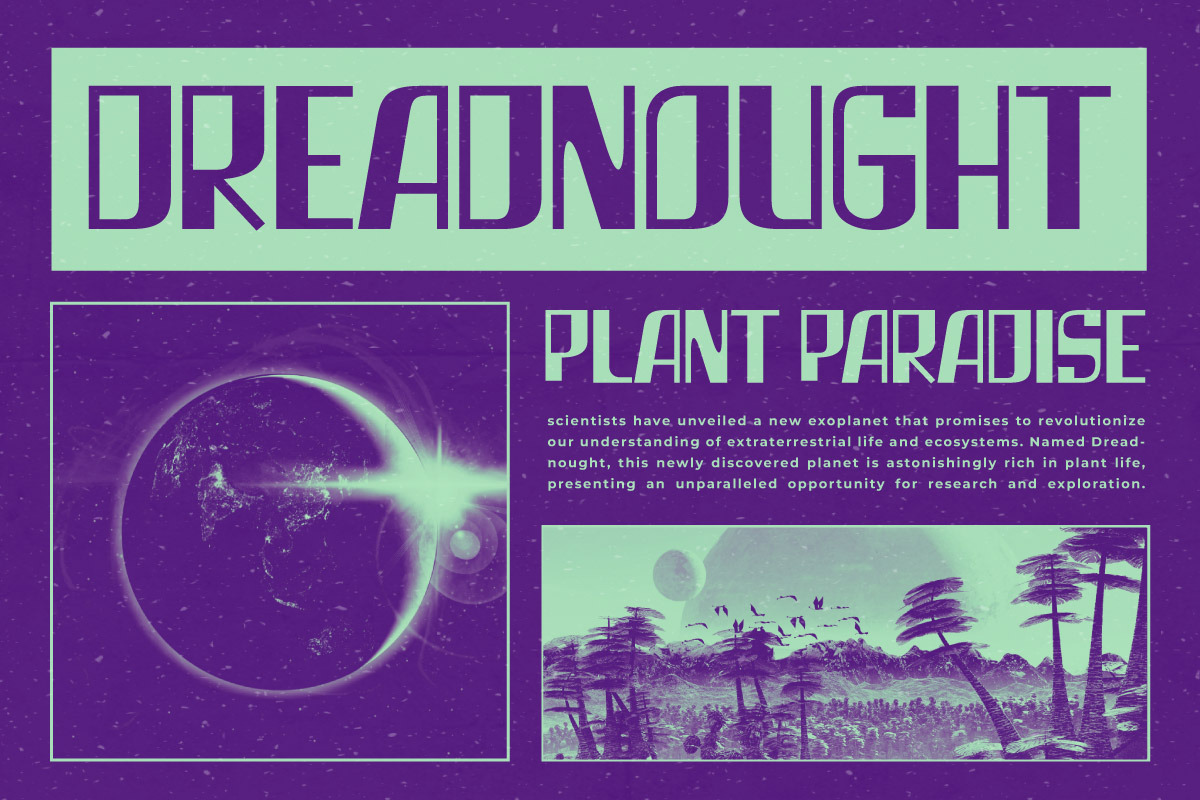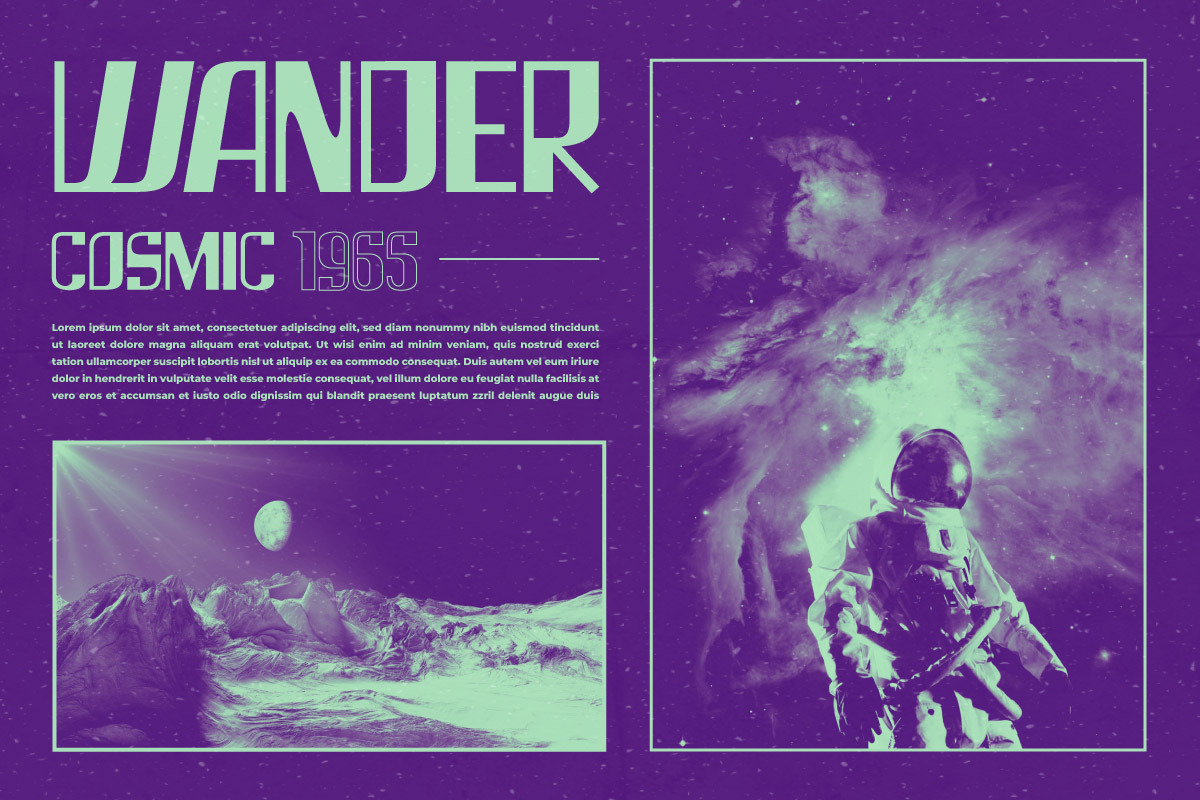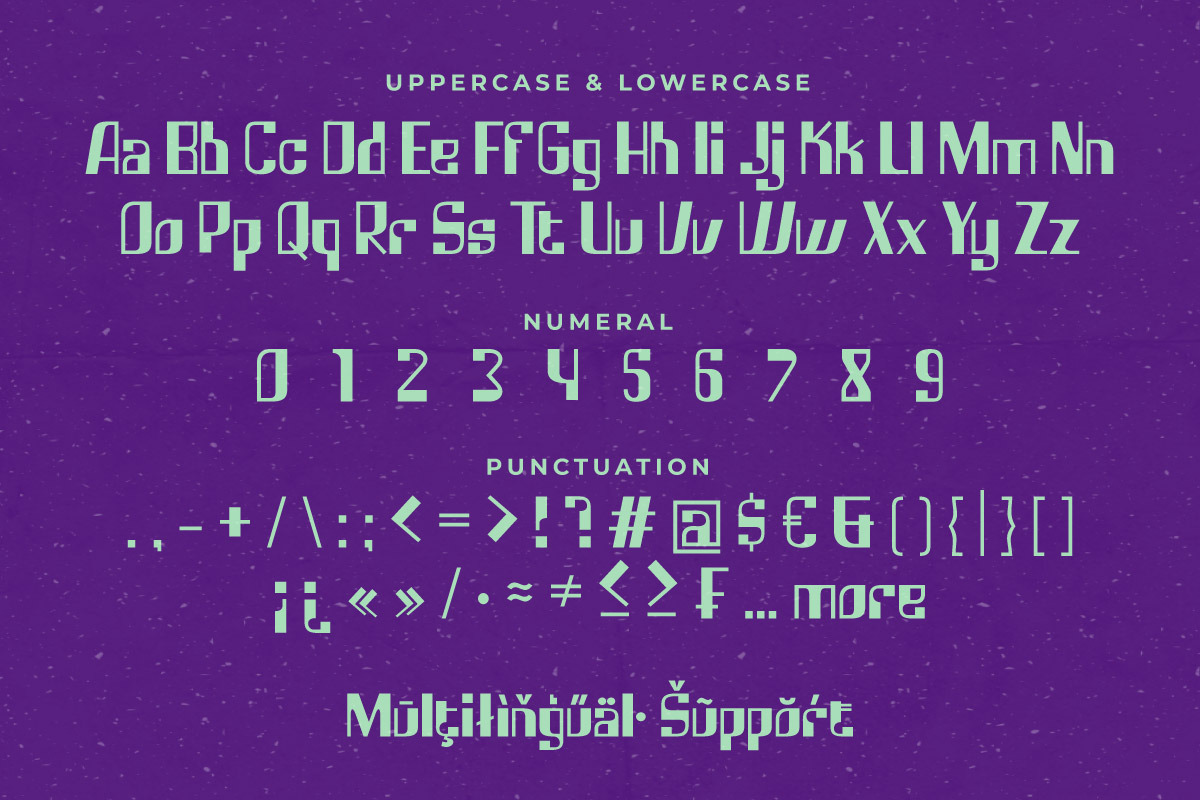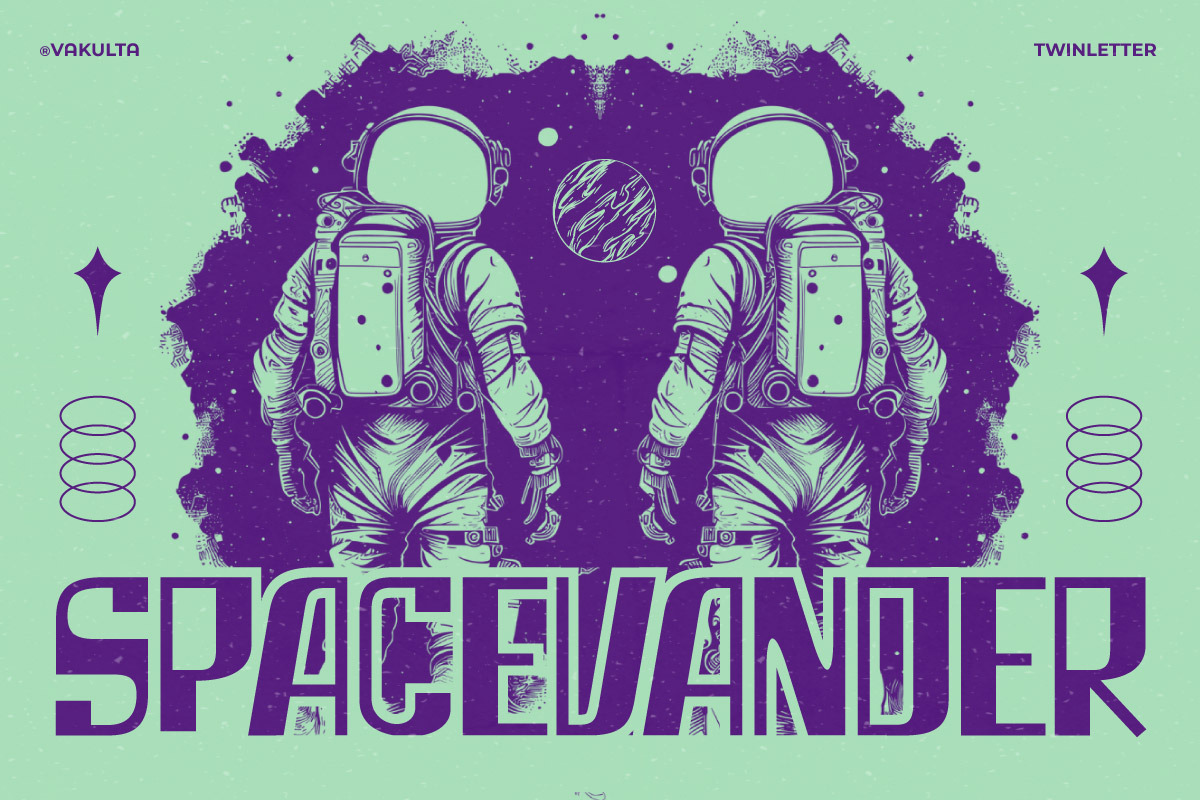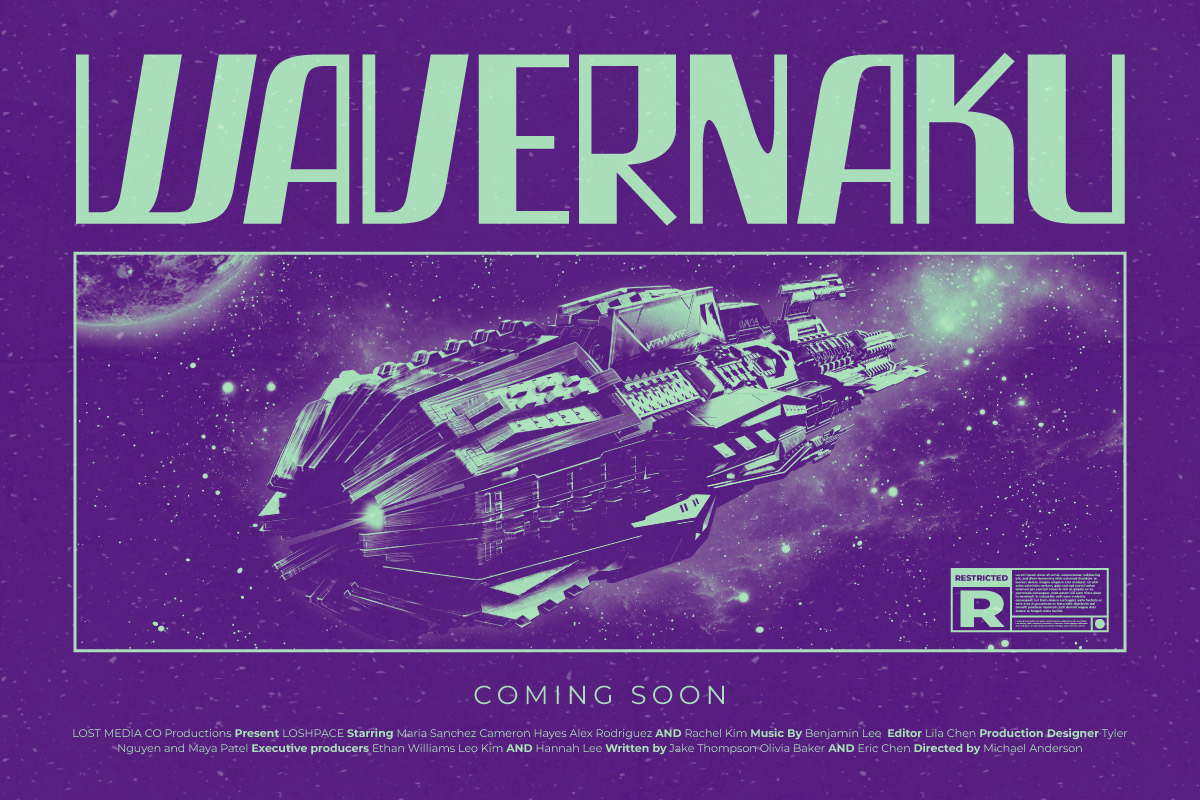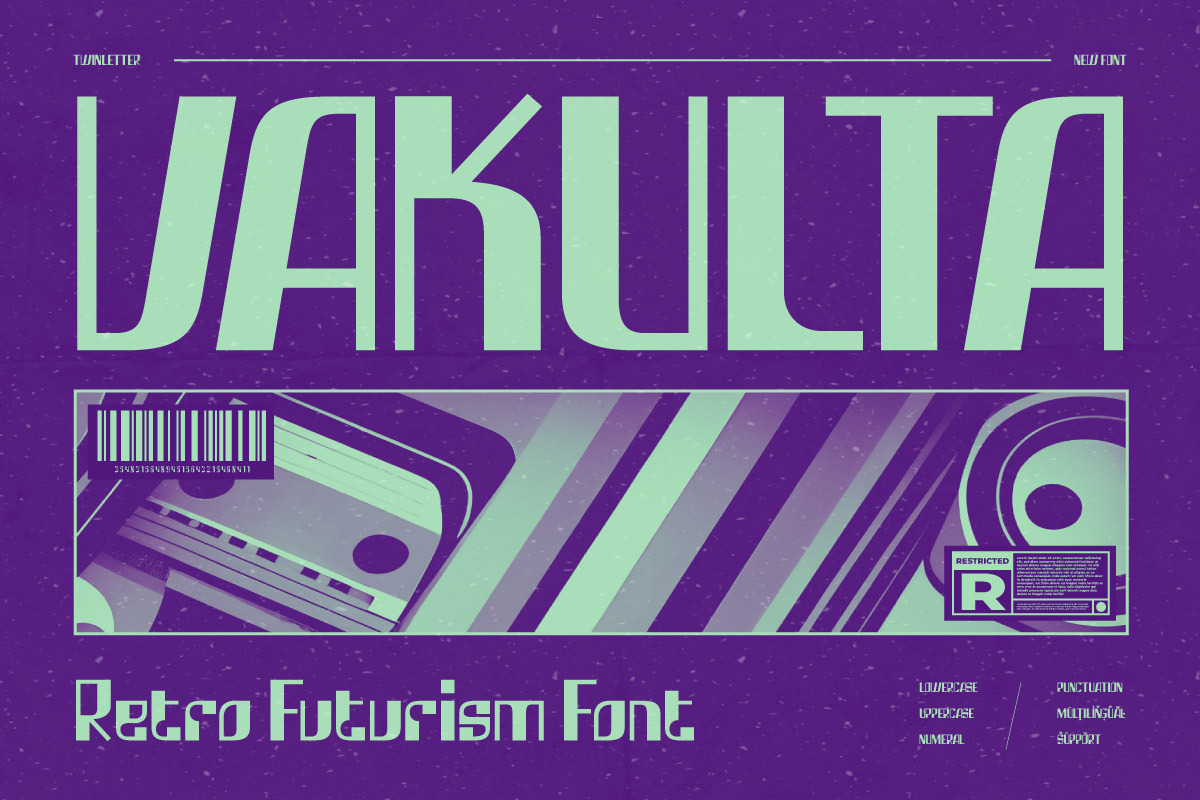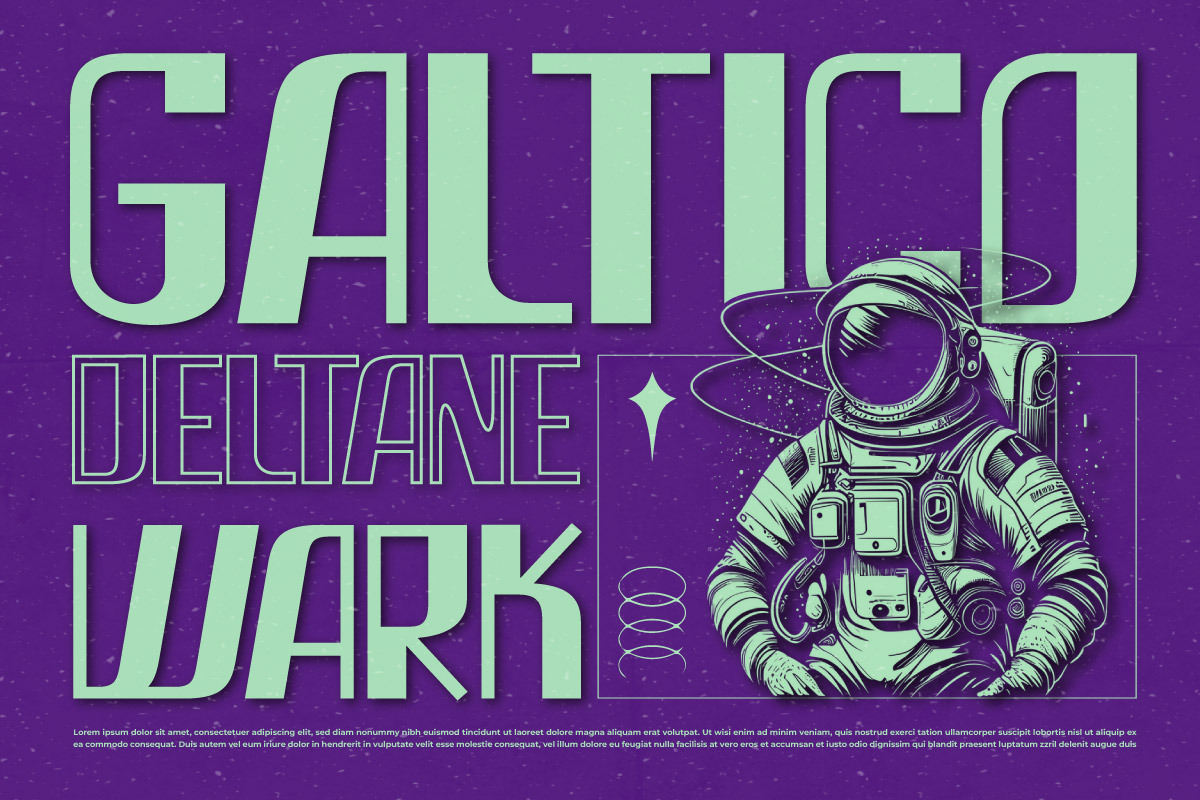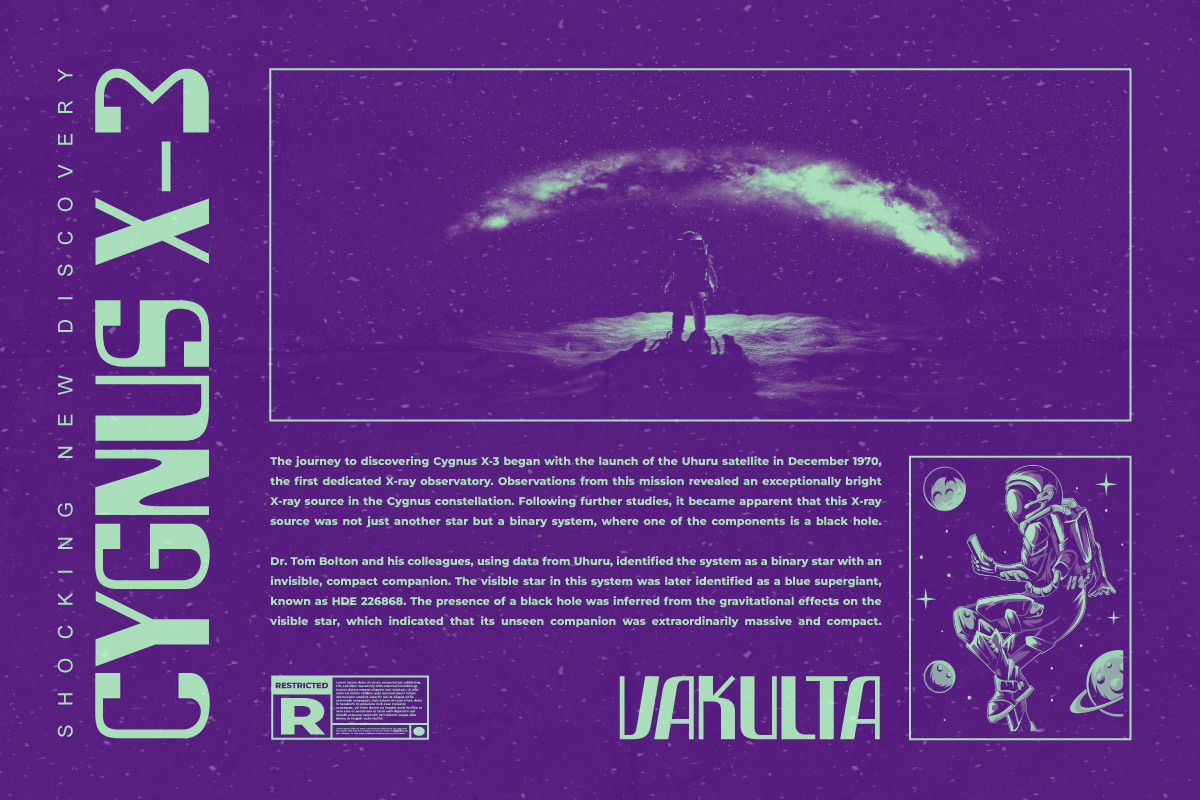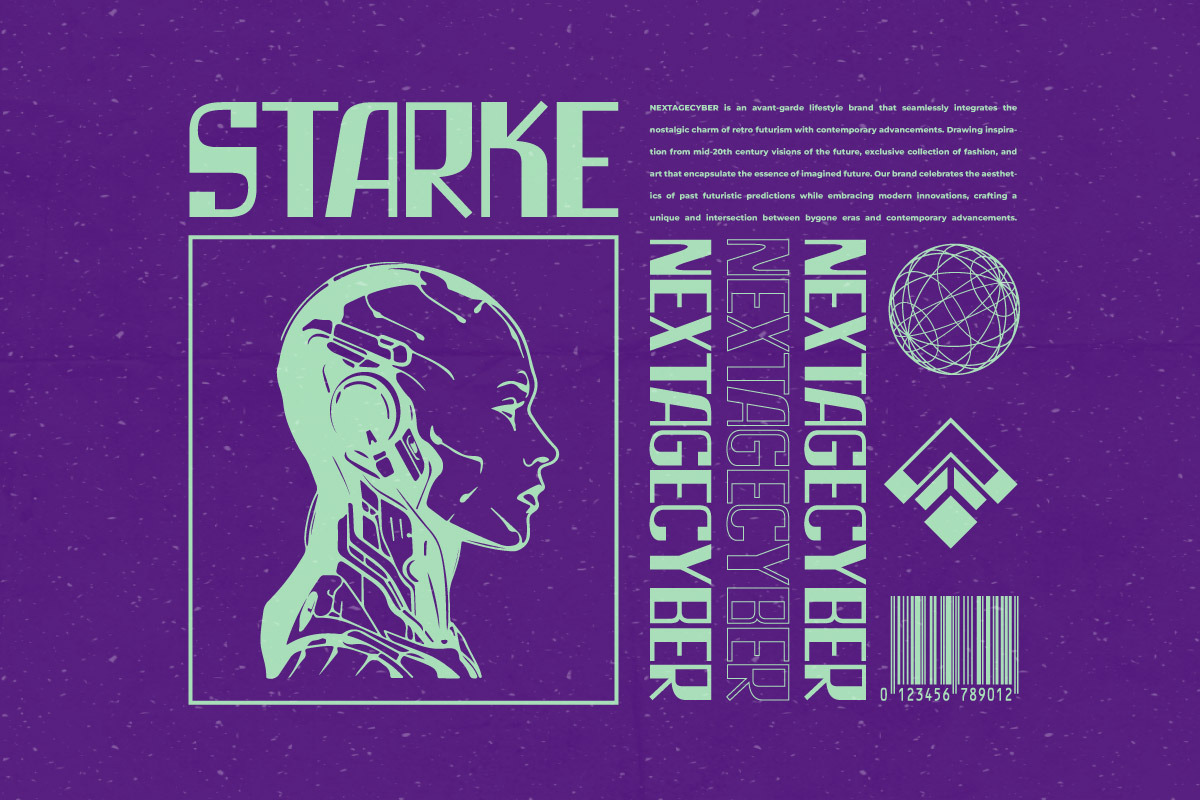
Vakulta - Retro Futurism Font
Step into the future with a touch of nostalgia using Vakulta, a Retro Futurism Font that blends vintage aesthetics with futuristic vibes. Ideal for sci-fi posters, retro-themed branding, video game titles, and more, Vakulta features sleek, angular letterforms that evoke the classic look of 80s sci-fi and cyberpunk. Each character is designed to transport your audience to a world where retro meets the future, creating a unique and captivating visual experience.
Vakulta’s bold and dynamic design is perfect for making your headlines and titles stand out. The font's unique style makes it versatile for various creative projects, from digital artwork to print media, ensuring your text not only grabs attention but also leaves a lasting impression. Whether you’re working on a retro-futuristic branding project or crafting a nostalgic sci-fi design, Vakulta provides the perfect blend of past and future.
Embrace the retro-futuristic aesthetic with Vakulta, a font that brings together the best of both worlds to make your designs truly unforgettable.